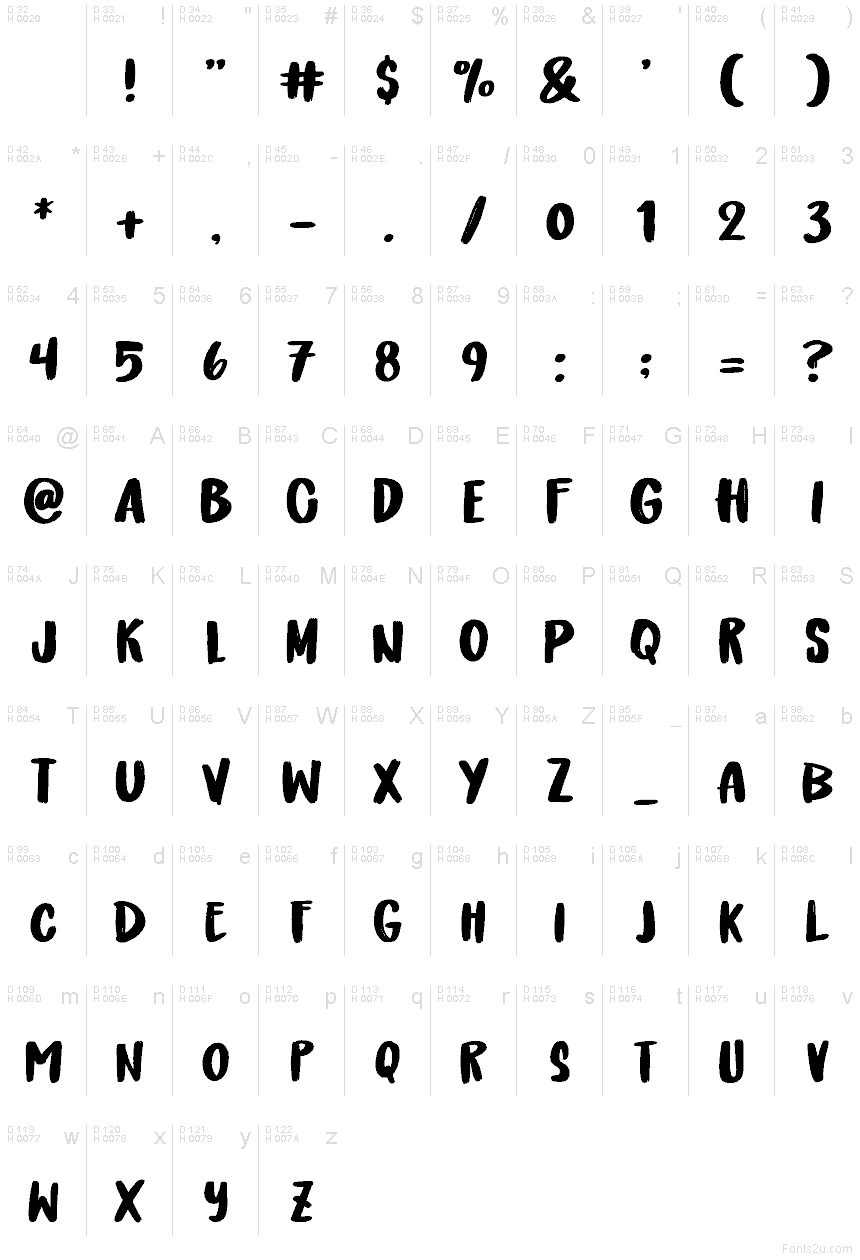
Overway
Overway font by Khurasan is a brush-style typeface with a bold weight and condensed width. Its overall look is hand-drawn and energetic, while its nature remains casual yet artistic. Overway has a natural sense of expressiveness and individuality because of which it easily stands out. It’s free for creative works and whether used alone, or combined with other fonts, the results are spectacular.
Use this font in clothing branding designs, headings & titles in magazines, posters and digital banners. Art blogs and books can benefit from Overway’s fantastic use as well. Make its wonderful style part of labels for packaging, stickers⦠Try using Overway in typography-focused t-shirt designs or animated kid’s video graphics; both will become so much more expressive!